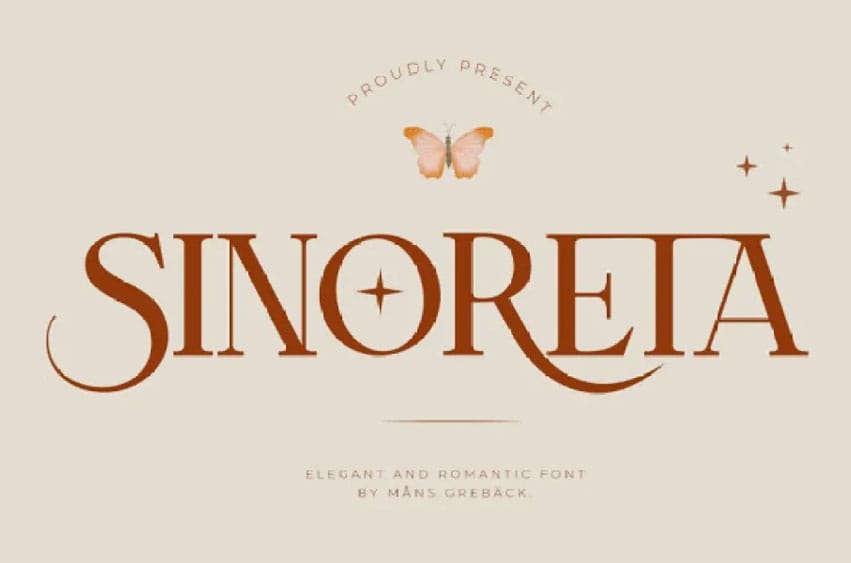
Sinoreta Font can be described as an old-fashioned serif typeface featuring an eye-catching retro design, adding style and sophistication to any style. With its decorative variations bringing its own special charm, Sinoreta can add a special flair to projects requiring professional typographic appearance such as logos, branding or headlines as well as editorial design projects. Sinoreta will bring classic elegance to any of these endeavors.
Sinoreta font was designed by Mans Greback in 2023 to combine traditional serif style with contemporary features of design. Choose Sinoreta for a sophisticated, timeless and eye-catching font that makes an impactful statement about you and your style.